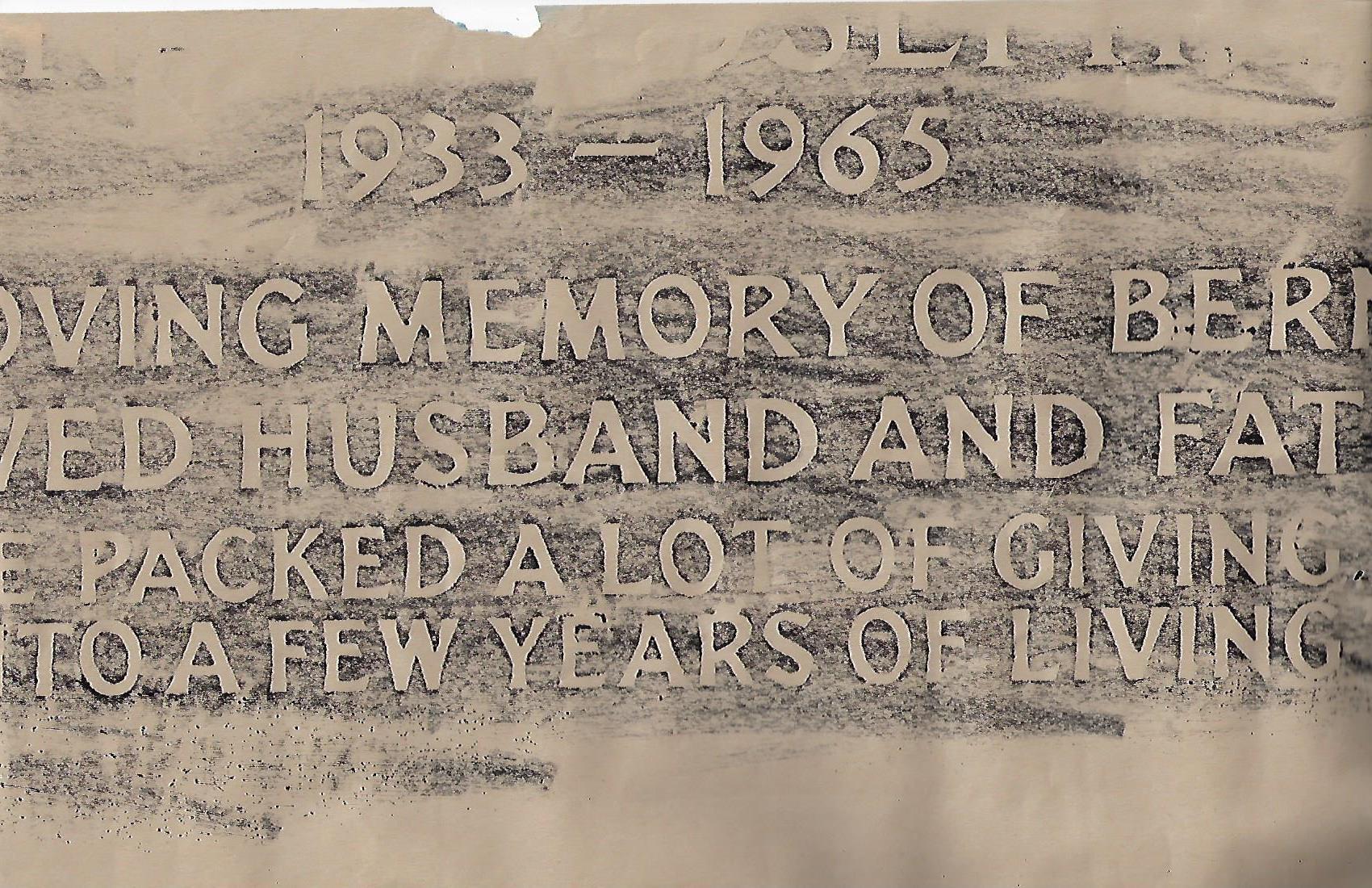
Font ID – Please.. Any ideas?
Hello, I believe this is all custom lettering that has been hand drawn. Most characters are very close, but each ‘R’ seems to be slightly different.